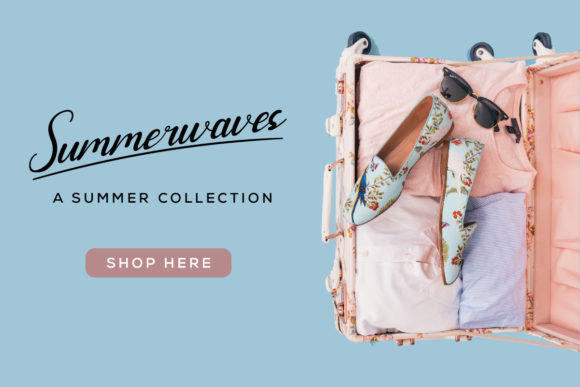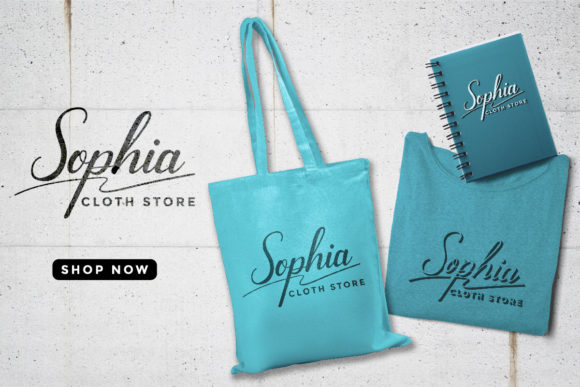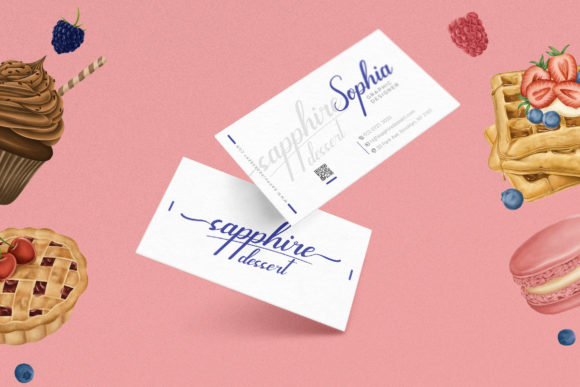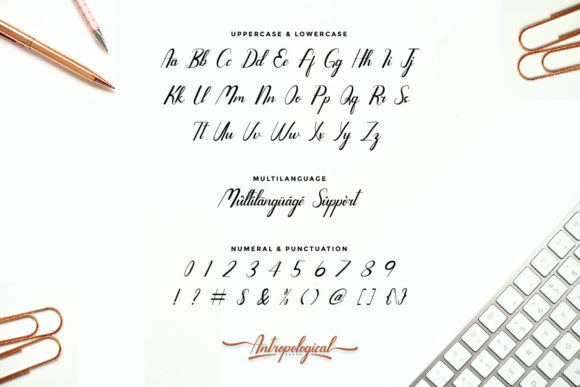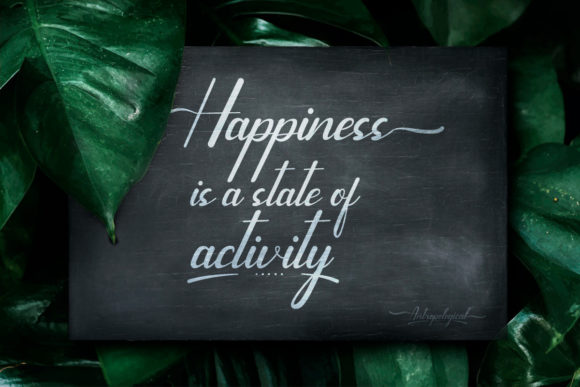
About Antropological Font
Antropological feels equally charming and elegant. It looks stunning on wedding invitations, thank you cards, quotes, greeting cards, logos, business cards and every other design which needs a handwritten touch.